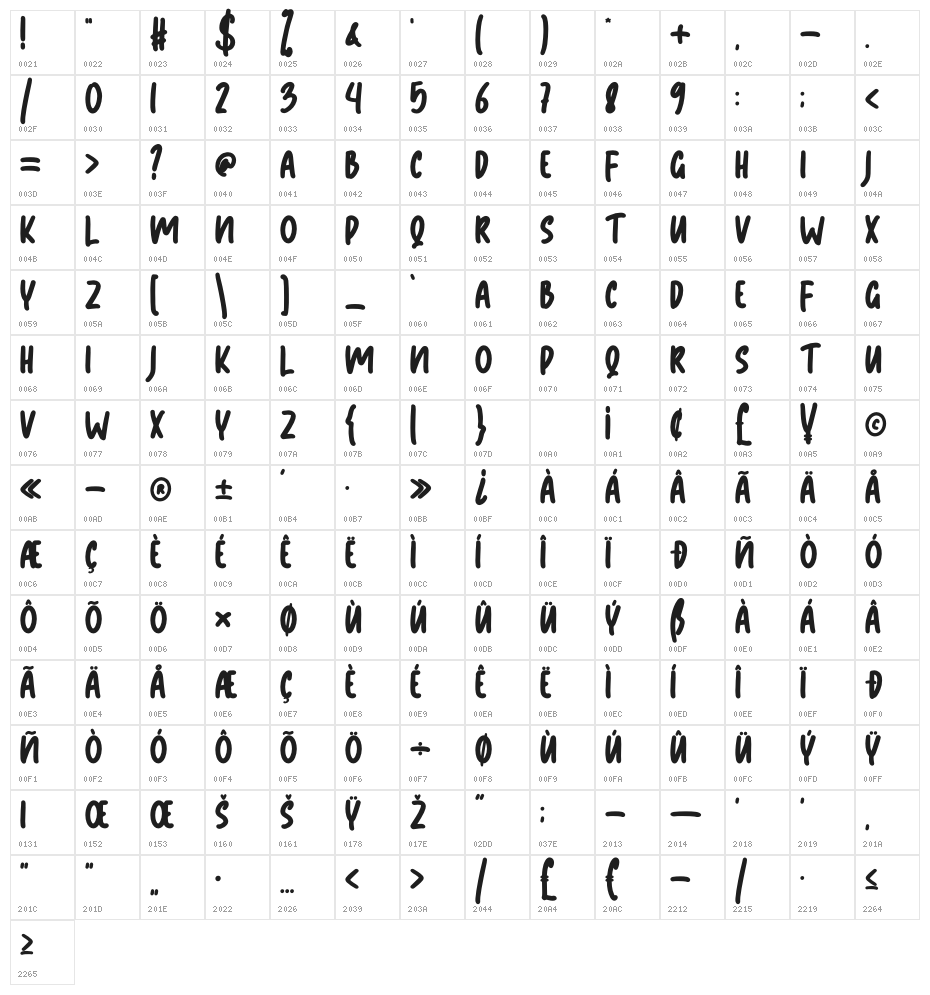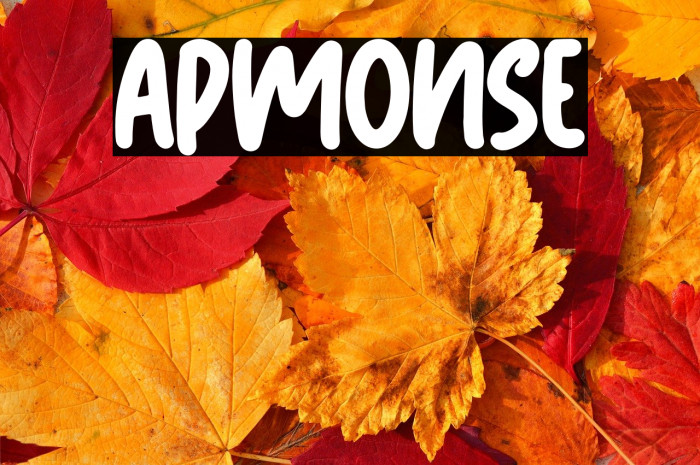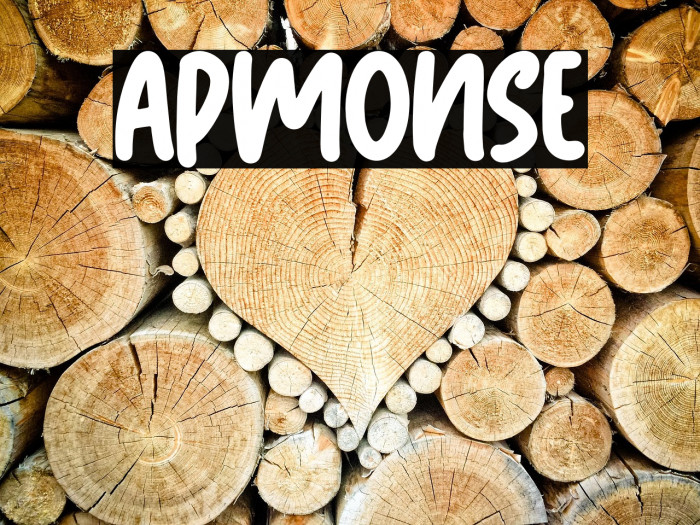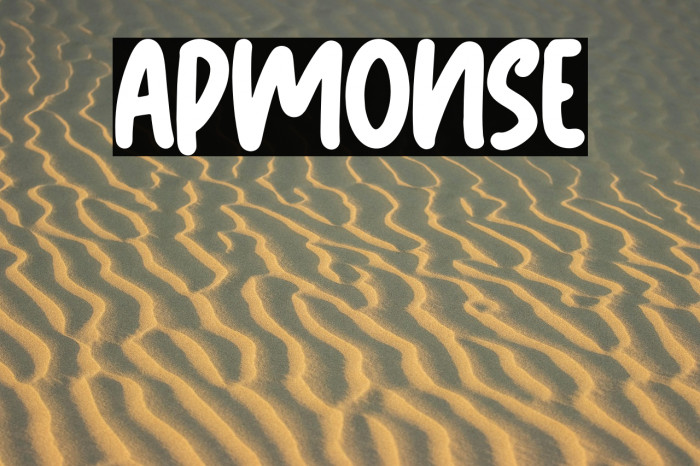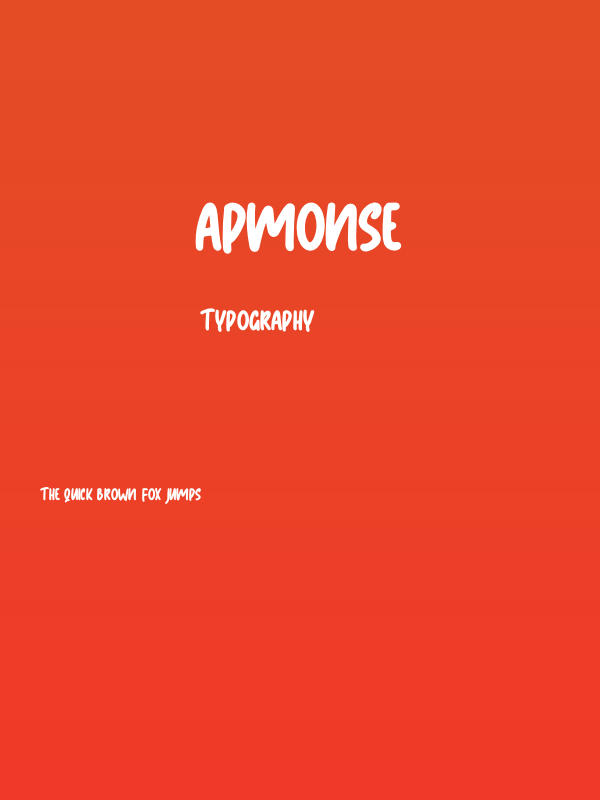
Apmonse Font
Apmonse Description
This font features a bold, handwritten style with a playful and energetic appearance. The letters are rounded and slightly irregular, giving it a casual and approachable feel. The uppercase and lowercase characters maintain a consistent style, with smooth curves and a uniform thickness throughout. Numbers and special characters are designed to match the overall aesthetic, ensuring a cohesive look. This font is ideal for projects that require a personal touch, such as invitations, greeting cards, or branding for creative businesses.